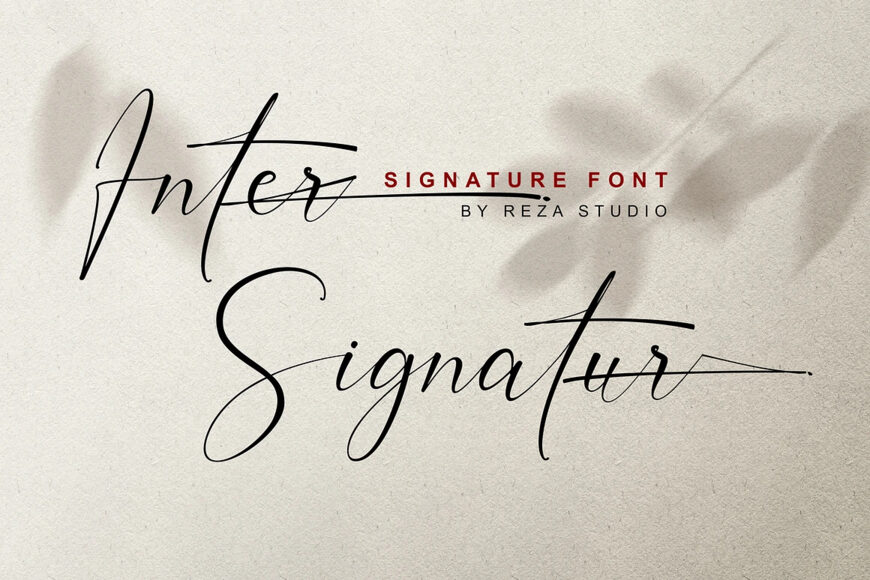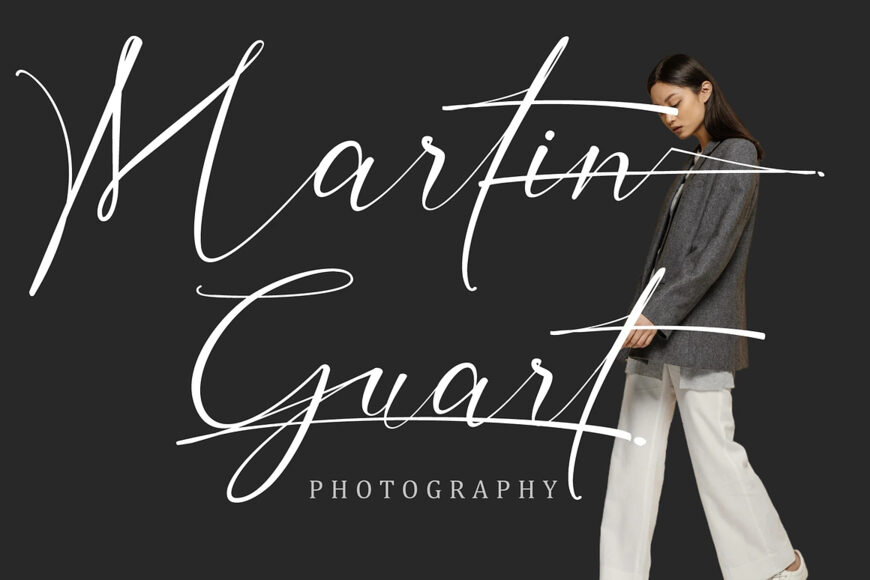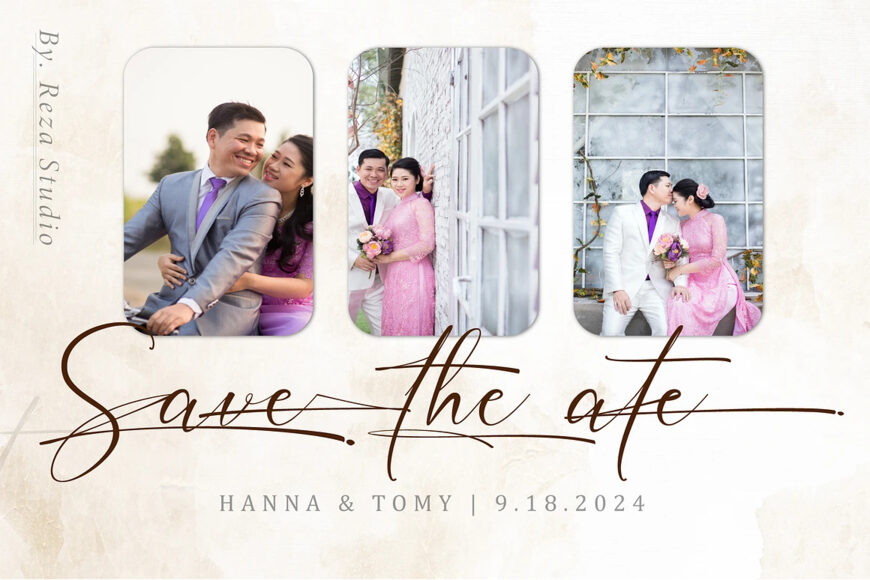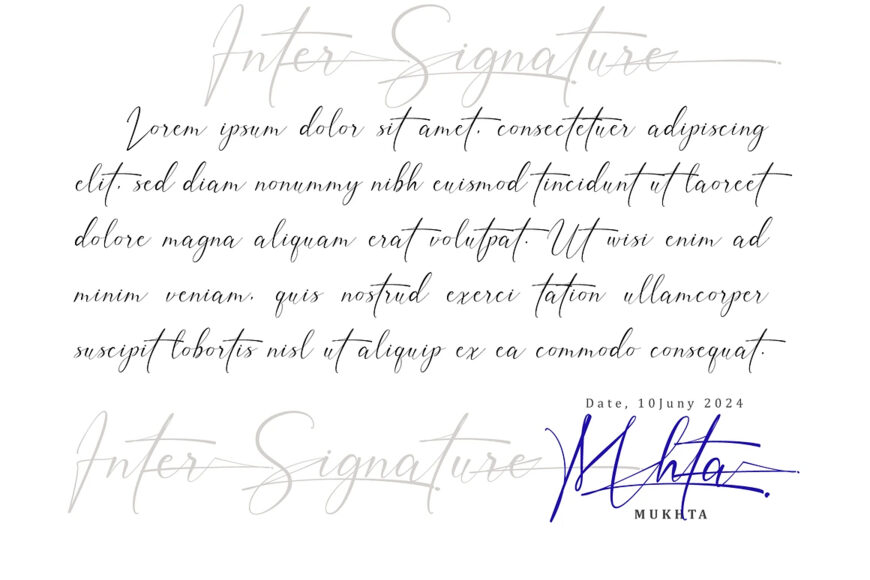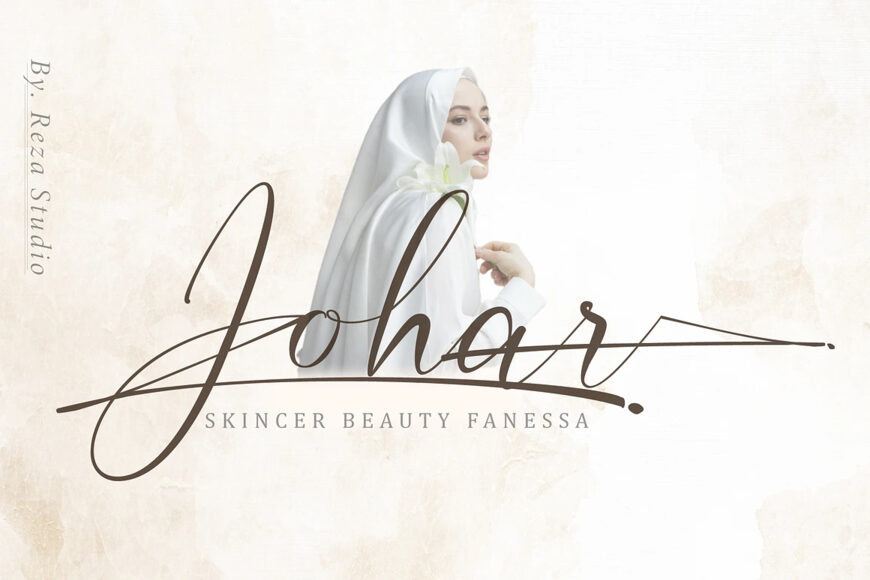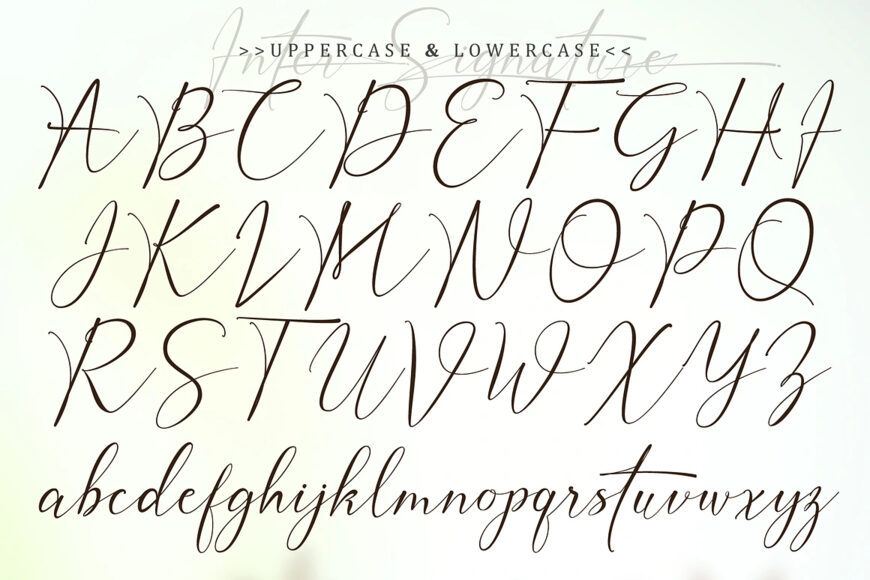
Inter signature is a stylish Calligraphy font featuring exquisite strokes. Ideal for crafting signature logos and watermarks, perfect for photography studios or wedding invitations, as well as initial branding logos.
Inter signature includes a complete set of beautifully hand-lettered uppercase and lowercase letters, numerals, a wide range of punctuation marks, and ligatures. Each lowercase letter is adorned with initial and terminal swashes, providing an authentic hand-lettered appearance.